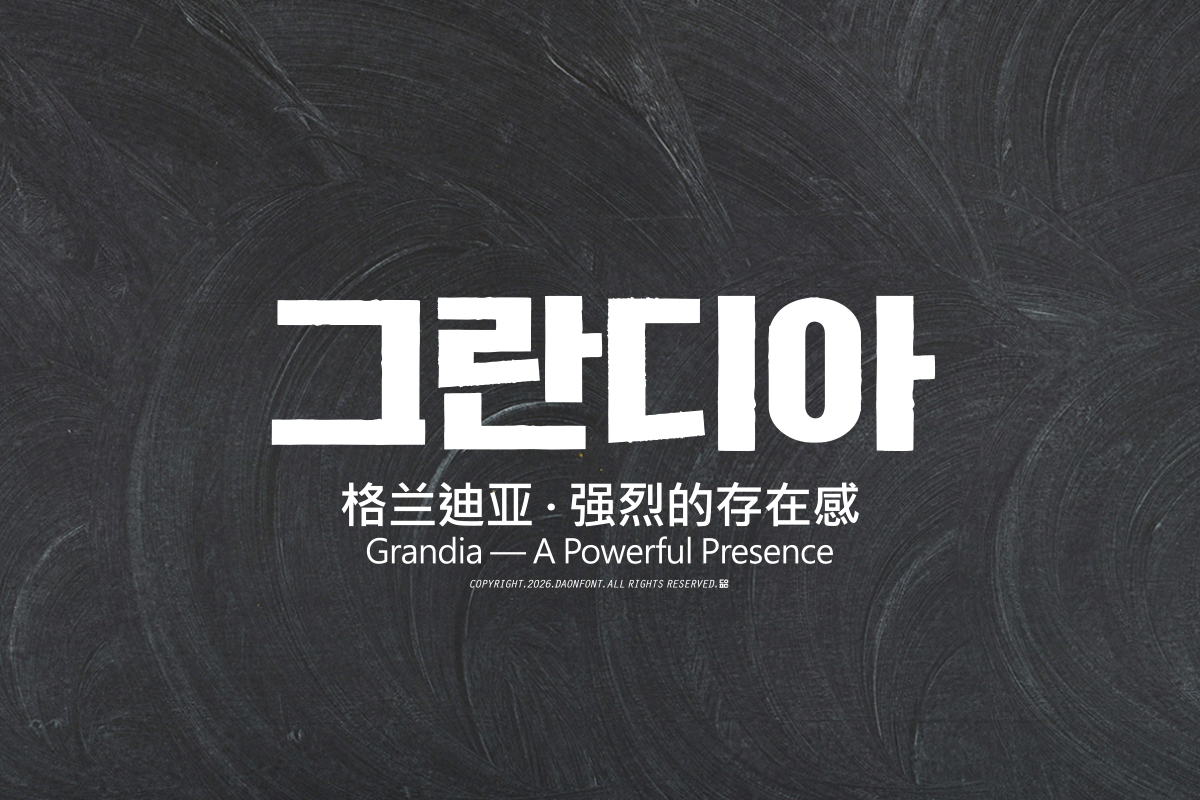
DAON GEULANDIA
DaonFont 'GRANDIA' derives its name from the English word "Grand," meaning "magnificent" or "majestic," effectively showcasing the powerful and dignified impression the typeface possesses. It leaves a strong impression the moment it is seen, conveying a heavier and more powerful atmosphere than typical headline typefaces. In particular, the addition of an effect resembling ink stamped onto wood creates a natural yet subtle rough texture throughout the characters.